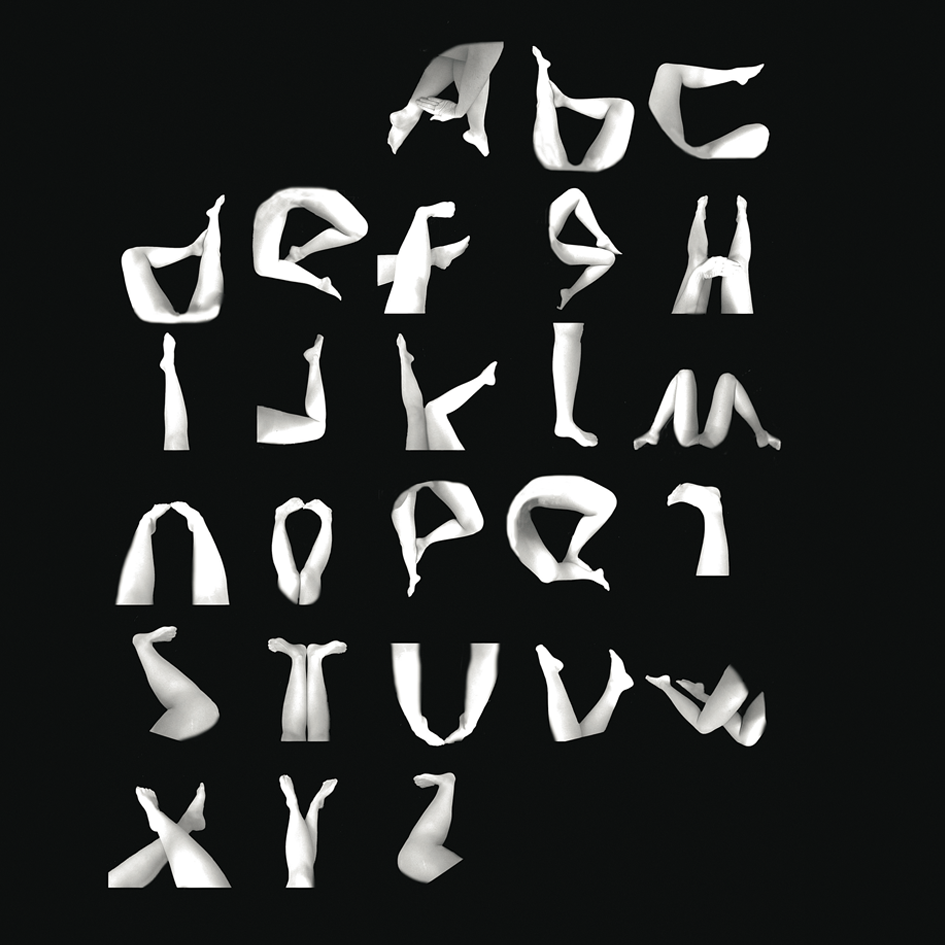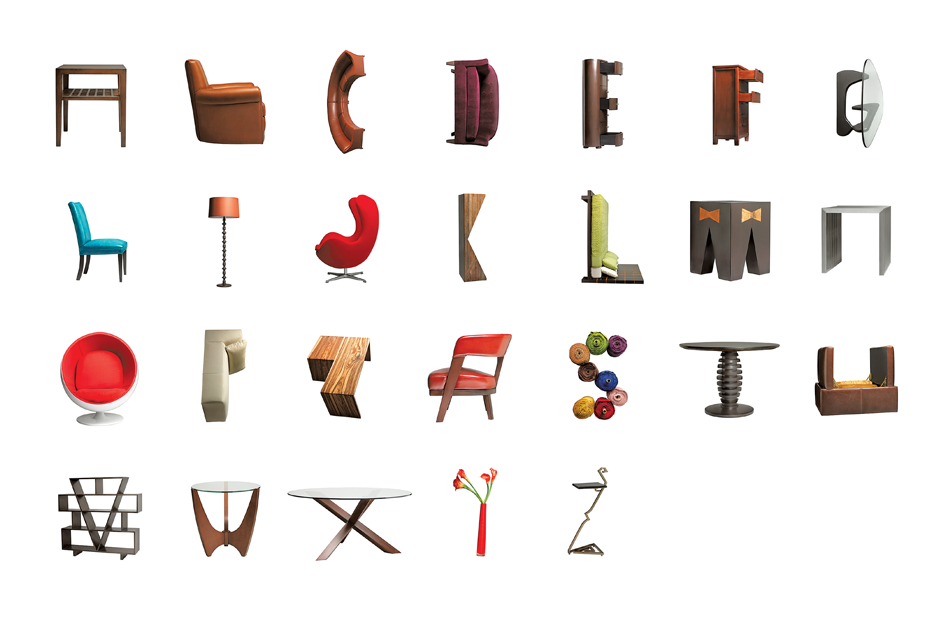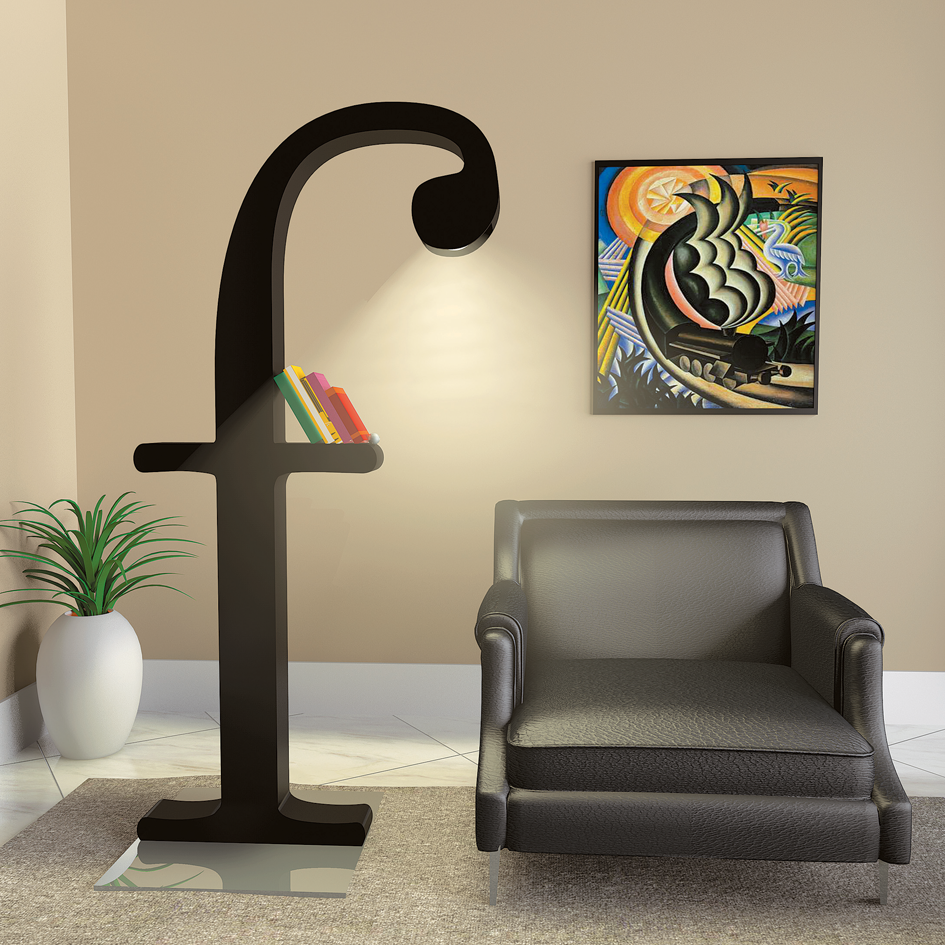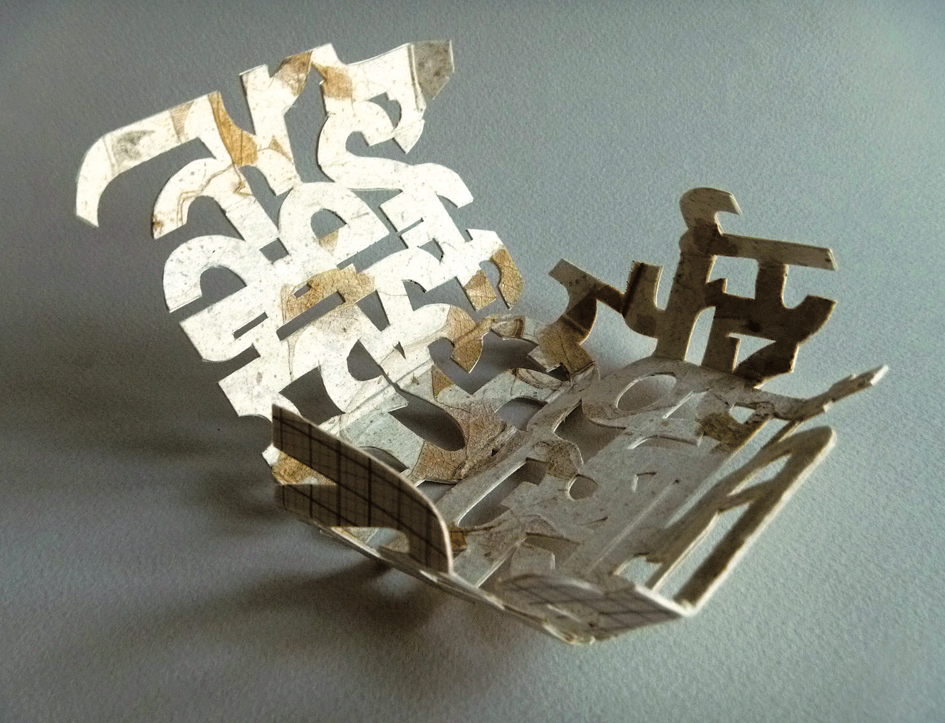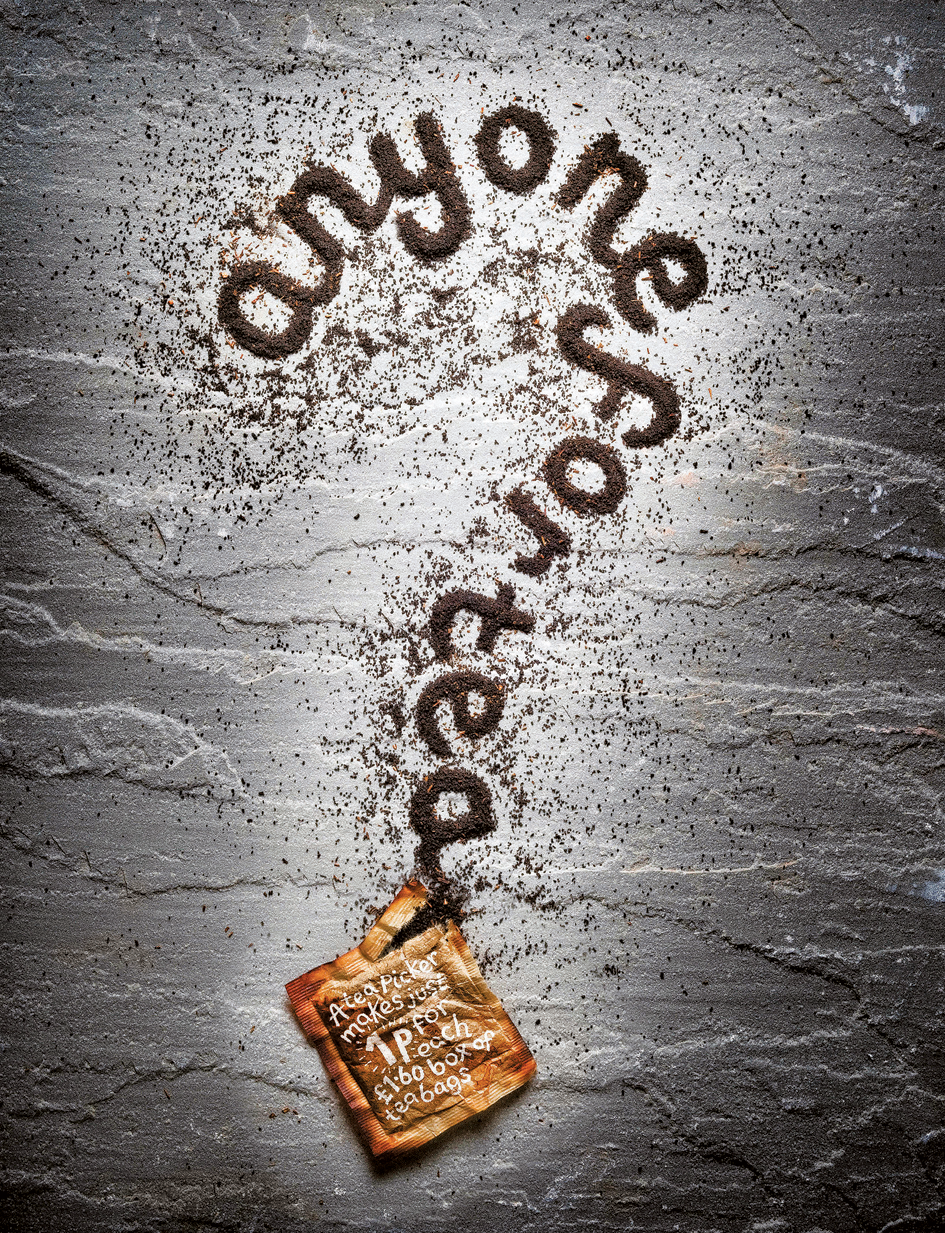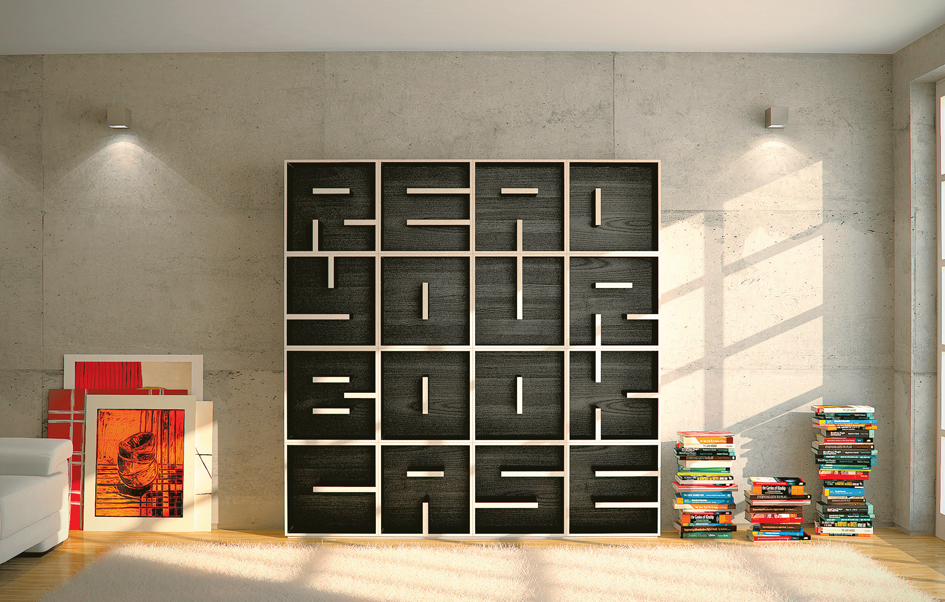
Gail Anderson on the alphabet of everyday things
Caterpillar cocoons followed by ice cubes followed by shadows, by sand, jasmine branches and cherries. Typography is not a medium humans invented. Typography is a universe in which we live and breath, we create and get inspired. We type to be remembed. We can only guess what was the core idea of this amazing project that Thames & Hudson published some weeks ago. Since 1990, he, Steven Heller, New York Times art director for 33 years and she, Gail Anderson, former art director of Rolling Stone have compiled books about typography and illustration yet it is in ther latest compilation titled The Typographic Universe that they introduce us to ‘the alphabet of everyday things’. Letters found in all kind of places, in every possible or impossible material, fonts made of fauna and human anatomy. “Type is everywhere. You can even see it when you look in the sky—particularly when you focus on what’s in the trees. Letterforms seemingly become elements of nature” Anderson told us and we are more than amazed with the unexpected typography that is literally everywhere.
“The genesis of the book was a project I gave my MFA students at The School of Visual Arts in NYC. I sent them out to ‘look up and look down’ and photograph all of the resulting typography that was in shadows, in the trees, and just about anywhere else their eyes led them. I was pleased by their type-is-everywhere collective epiphany, and Steve Heller suggested that we turn the project into something much bigger—a book. This is our ninth book together (out of his 165!).” What a number, what a word.
The Typographic Universe: Letterforms Found In Nature, The Built World, and Human Imagination by Thames and Hudson is a 350 page book of typography found in virtually everything, in things in nature and cities, made from anything but ordinary ink. As designers and co-authors Steven Heller and Gail Anderson explain in the introduction: “If you cast your eye up to the sky or down to the ground, there’s an excellent likelihood you’ll discover something that either looks like a letter or actually is one”. It is this revelation that makes this book great not only for the typography enthusiast, but also for the common reader.
“Type is everywhere. You can even see it when you look in the sky. Letterforms seemingly become elements of nature”
In this massively inspiring volume of edited ideas bodily, floral and edible types delve in the ever expanding Laniakea of typography. “An alphabet made from non-typographic materials can either be a brilliant concept or a bad pun. The latter–etters that stretch the ‘joke’ beyond being funny–must be avoided.” is a rule we learned just by reading about a project that brought inspiring ideas and people together. “Working on The Typographic Universe might have been the most fun I’ve had researching a book” Andersen reminded us. “There was a wealth of material, and the people we contacted were wonderfully enthusiastic and supportive”. A step towards a better humanity obviously starts with a letter.